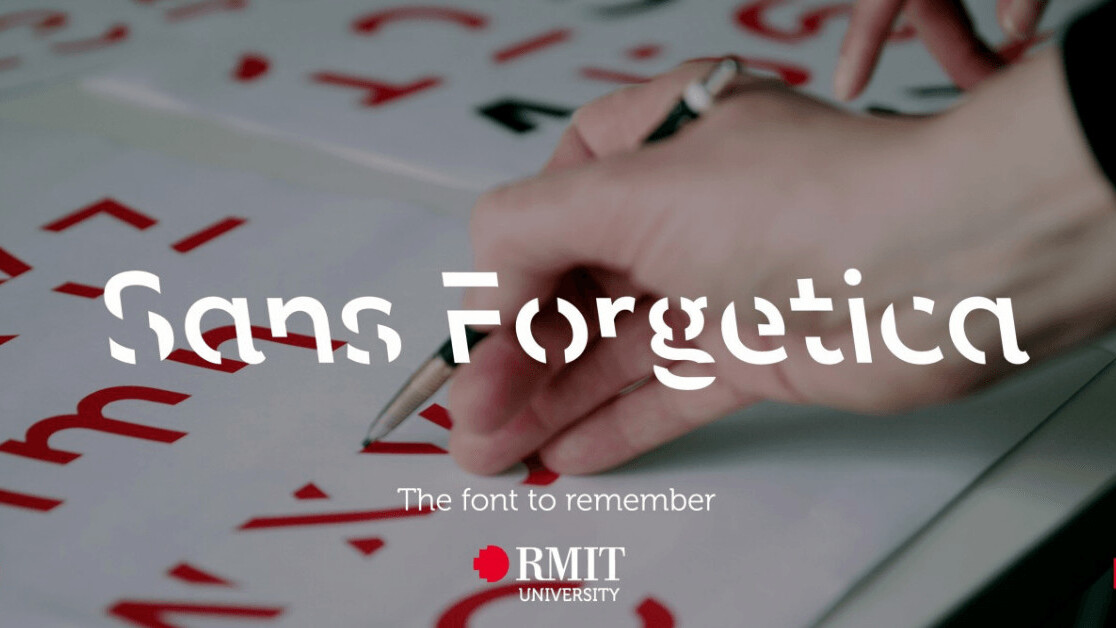
I spent my university years sitting in countless lectures accompanied by uninspiring Powerpoint presentations. My notes were equally uninspiring, and never stayed in my memory.
It’s a problem that doesn’t just affect students. Ever caught yourself re-reading the same article twice? To make text easier to remember, Melbourne-based designers partnered with behavioral scientists at RMIT University and have designed a font that actually makes reading more difficult.
Ironically named “Sans Forgetica,” the font is more difficult to read than most typefaces – and that’s by design. The ‘desirable difficulty’ you experience when reading information formatted in Sans Forgetica prompts your brain to engage in deeper processing.
To make your brain work harder to retain information, the font is legible yet evidently broken and disconnected. Since chunks of words are removed, the brain is required to put more effort into reading, which only takes a fraction of a second — but this font seems to be working.
A recent study involving 400 university students found a small increase in memory retention when reading text in Sans Forgetica compared to Arial. The participants reading Sans Forgetica were found to remember 57 percent of the text, and only 50 percent when reading in Arial.
Although the font has promising statistics, it has limitations according to lecturer and Sans Forgetica co-creator, Stephen Banham. Speaking to the Guardian, Banham said: “God no, you wouldn’t want novels printed in it, it would probably induce a headache.”